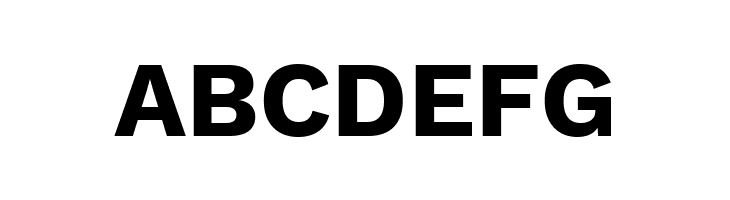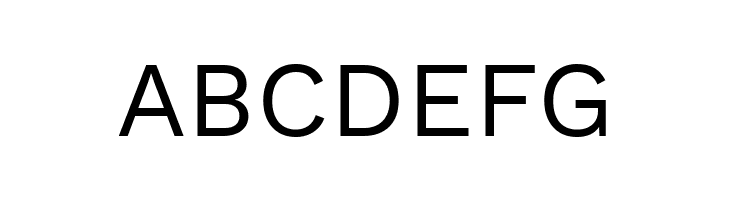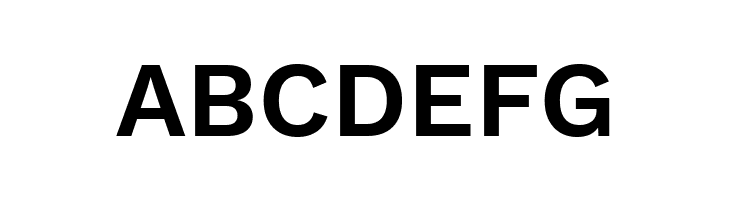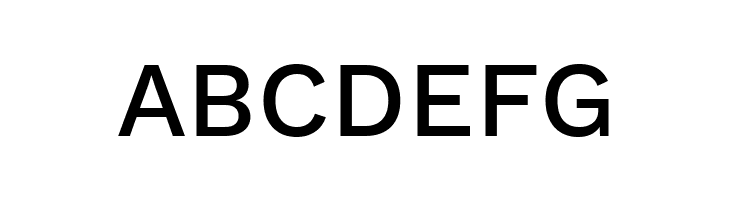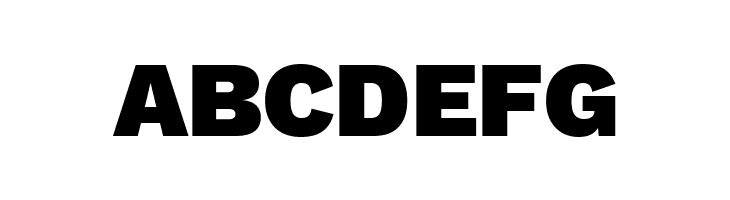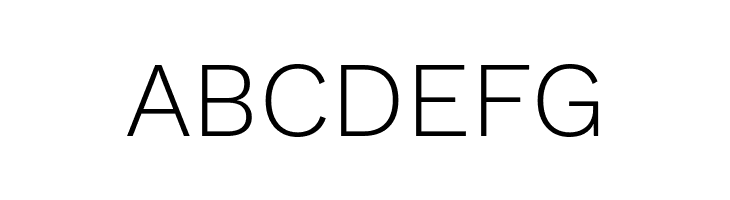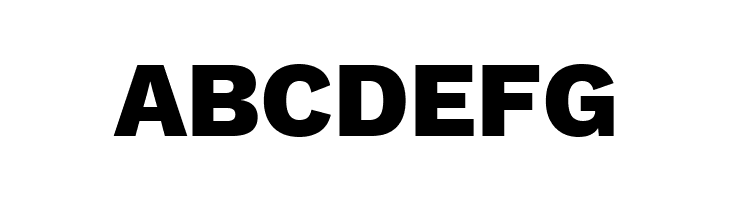
A modern, geometric sans-serif font with clean lines and uniform stroke width.
A bold, modern sans-serif font with strong, uniform strokes.
A bold, modern sans-serif font with clean lines and strong presence.
A bold, modern sans-serif typeface with strong, thick strokes.
A clean, modern sans-serif font with an extra light weight, perfect for minimalist designs.
A clean, modern sans-serif font with a light weight and excellent legibility.
A modern, clean sans-serif font with geometric shapes and uniform strokes.
A modern, semi-bold sans-serif font with excellent legibility and balance.